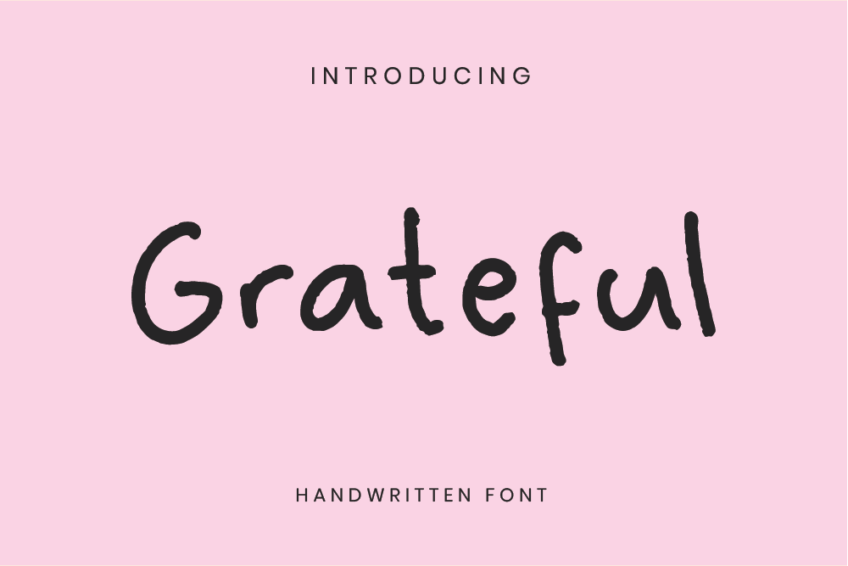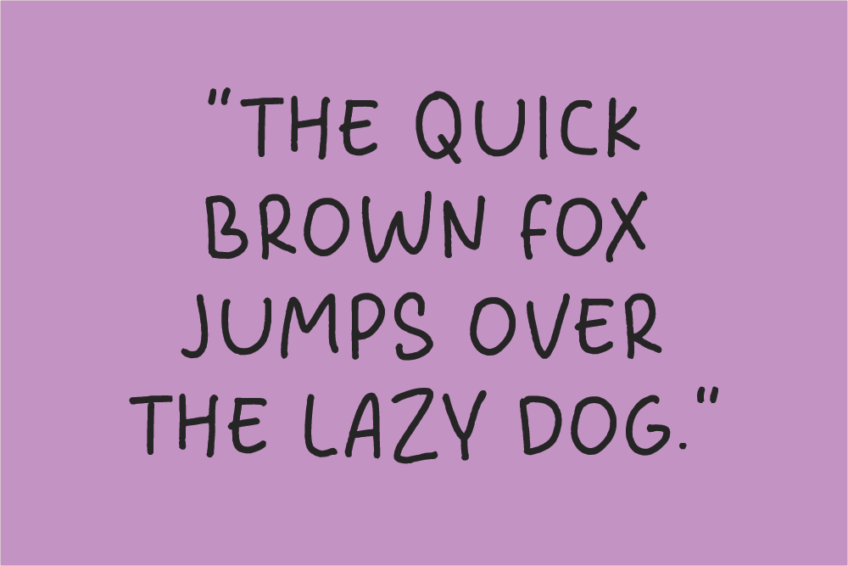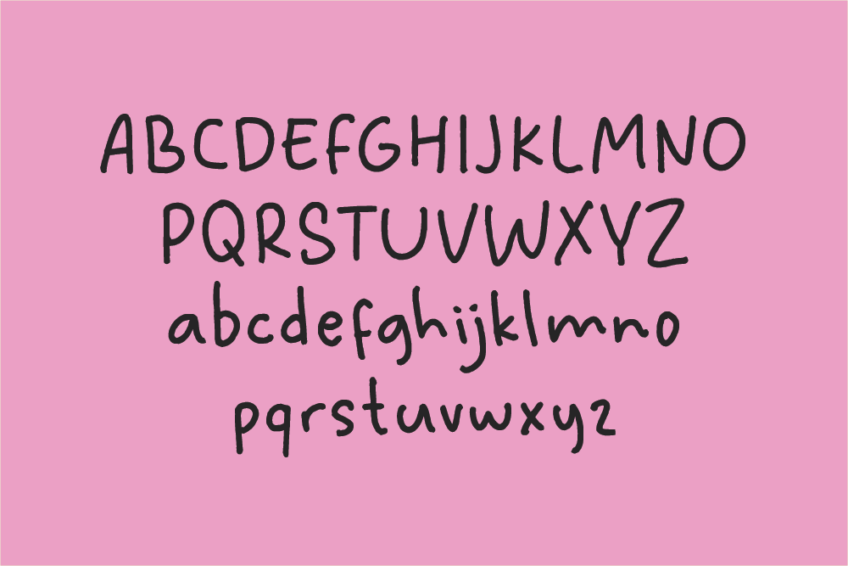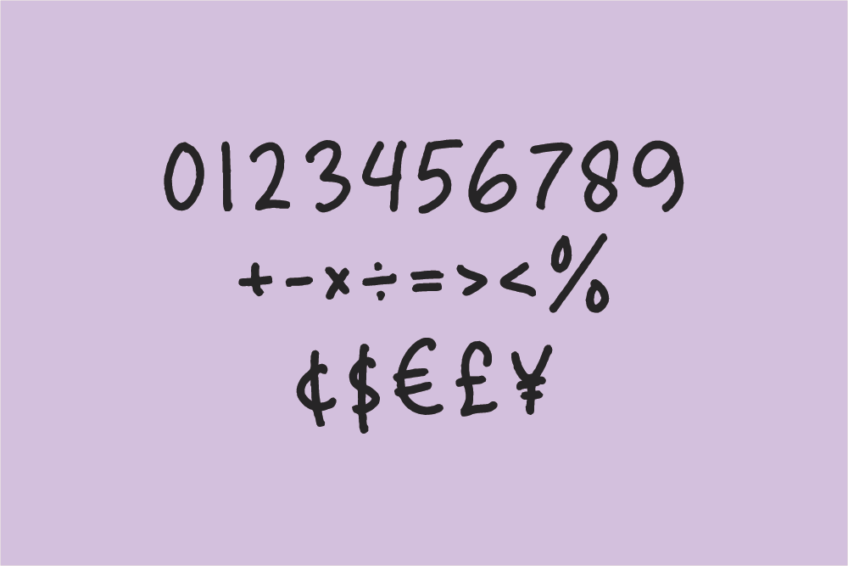
Grateful HF
Discover the charm of Grateful Handwritten Font, a Font that Looks Like Handwriting Word. With its fluid strokes and organic details, this font achieves a genuine handwritten look, adding a touch of warmth and personality to your projects.
Whether you’re working on invitations, branding materials, or any creative endeavor, Grateful brings a unique and timeless quality to your words. Its versatility allows you to convey a sense of authenticity and connection, making your text appear as if it were beautifully handwritten.
Elevate your designs with Grateful Handwritten Font – a Font that Looks Like Handwriting Word.